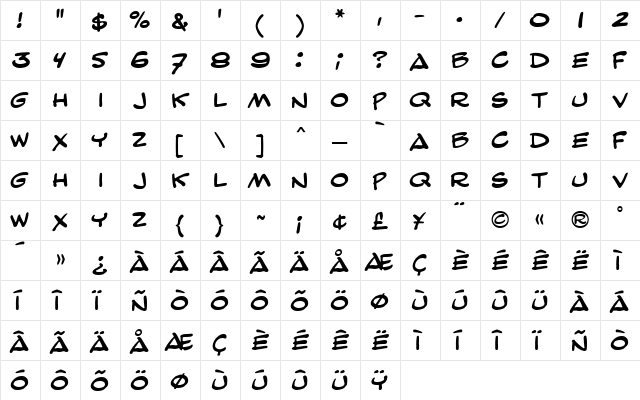
Comic Strip MN Regular
Design Context for Comic Strip MN Typeface
Comic Strip MN has an approachable, lighthearted character — its loose, expressive forms are well-suited to children's content, casual branding, and fun-first design.
Font Pairing: Pairs well with a rounded or humanist sans for body copy, maintaining the friendly tone without relying on Comic Strip MN to carry extended reading.
Pro Tip: Use Comic Strip MN at larger display sizes where its expressive character can land. Pair with a clean, simple sans for body copy to maintain readability.